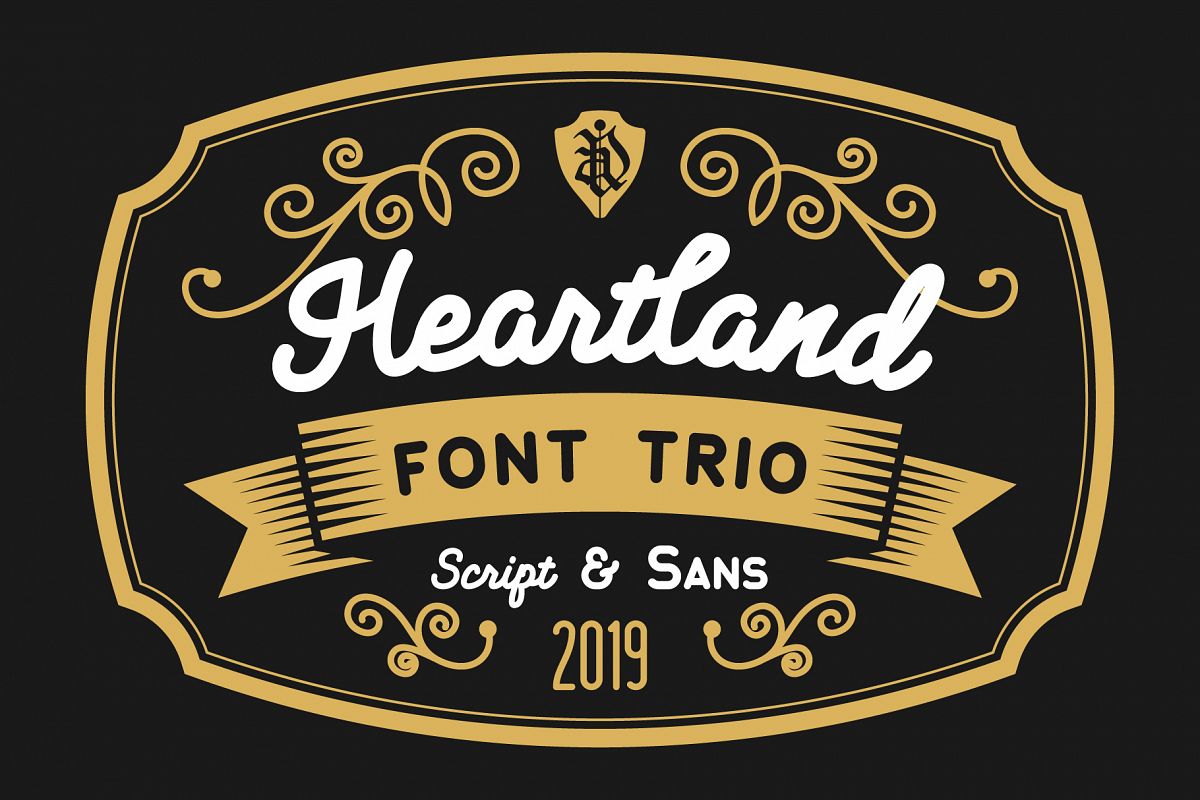
Heartland
Heartland font trio is a pack of the bold connected script and pair rounded sans - regular and condensed.
Font is great to use for logotype, menu and product labels, prints, posters, branding, social media.
This pack include 3 fonts:
- Heartland Script
- Heartland Sans
- Heartland Sans Condensed